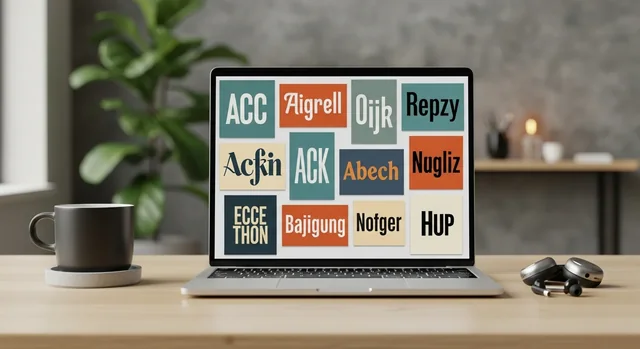
Typography has evolved dramatically in 2025, and hipster fonts continue to dominate creative design spaces. Whether you're crafting a brand identity, designing social media content, or developing a website, the right hipster font can transform your project from ordinary to extraordinary. These fonts blend vintage charm with contemporary functionality, creating that perfect balance between nostalgic appeal and modern usability.
The hipster font movement has matured significantly, moving beyond simple retro aesthetics to embrace variable font technology, sustainable design principles, and accessibility standards. Today's hipster fonts are more versatile, technically advanced, and culturally diverse than ever before.
What Defines Hipster Fonts in 2025?
Modern hipster fonts embody several key characteristics that set them apart from mainstream typography. These fonts typically feature hand-crafted aesthetics, vintage-inspired letterforms, and authentic imperfections that give them personality and warmth.
Key characteristics include:
- Variable font technology for responsive design
- Organic, hand-drawn appearances
- Vintage and retro-inspired elements
- Sustainable design principles
- Cultural authenticity and diversity
- Enhanced accessibility features
- Cross-platform compatibility
The 2025 hipster font landscape emphasizes authenticity over artifice, with designers gravitating toward fonts that tell stories and evoke genuine emotions rather than simply following trends.
Top Hipster Font Trends for 2025
Variable Vintage Fonts
Variable fonts have revolutionized hipster typography by allowing designers to adjust weight, width, and other parameters seamlessly. This technology enables vintage-inspired fonts to maintain their character across different sizes and applications while optimizing web performance.
Retro-Futurism Typography
The retro-futurism trend combines 1970s and 1980s aesthetic elements with contemporary design sensibilities. These fonts feature bold geometric shapes, neon-inspired colors, and space-age influences that appeal to both nostalgic and forward-thinking audiences.
Sustainable Typography
Environmental consciousness has influenced font design, with creators developing "eco-fonts" that reduce ink usage and digital fonts optimized for energy efficiency. These sustainable options align with the hipster community's values while maintaining aesthetic appeal.
Cultural Fusion Fonts
2025's hipster fonts celebrate global diversity, incorporating design elements from various cultures and traditions. This trend reflects the hipster community's appreciation for authentic cultural expressions and global connectivity.
Essential Hipster Fonts for 2025
Coolvetica
Coolvetica remains a cornerstone of hipster typography, offering a perfect blend of Swiss modernism and casual approachability. This versatile font family includes multiple weights and styles, making it ideal for both headlines and body text. The 2025 update includes improved language support and enhanced variable font capabilities.
Best for: Branding, logos, headlines, modern layouts
Coco Gothic
Coco Gothic has evolved into one of the most sophisticated hipster fonts available, combining art deco elegance with contemporary functionality. Its geometric letterforms and distinctive character make it perfect for luxury brands and high-end design projects.
Best for: Luxury branding, fashion, architectural projects
Rousseau
Inspired by hand-lettered signage and vintage advertisements, Rousseau captures the essence of mid-century American design. The font's organic curves and authentic imperfections make it ideal for projects requiring warmth and personality.
Best for: Restaurant branding, vintage-themed projects, packaging
Neo Grunge Variable
This 2025 release combines grunge aesthetics with variable font technology, allowing designers to adjust distress levels and weight dynamically. It's perfect for music industry projects and alternative brand identities.
Best for: Music branding, alternative fashion, youth-oriented designs
Artisan Script Pro
Featuring advanced OpenType features and contextual alternates, Artisan Script Pro delivers authentic hand-lettered appearance with professional reliability. The font includes over 1,200 glyphs and supports 200+ languages.
Best for: Wedding invitations, artisanal brands, premium packaging
Hipster Font Categories and Applications
What's the best way to pair hipster fonts with other typefaces?
Pair decorative hipster fonts with clean, neutral supporting typefaces that don't compete for attention. Consider contrast in style, weight, and character while maintaining visual harmony. Test combinations at various sizes and applications to ensure they work together effectively across your entire design system.